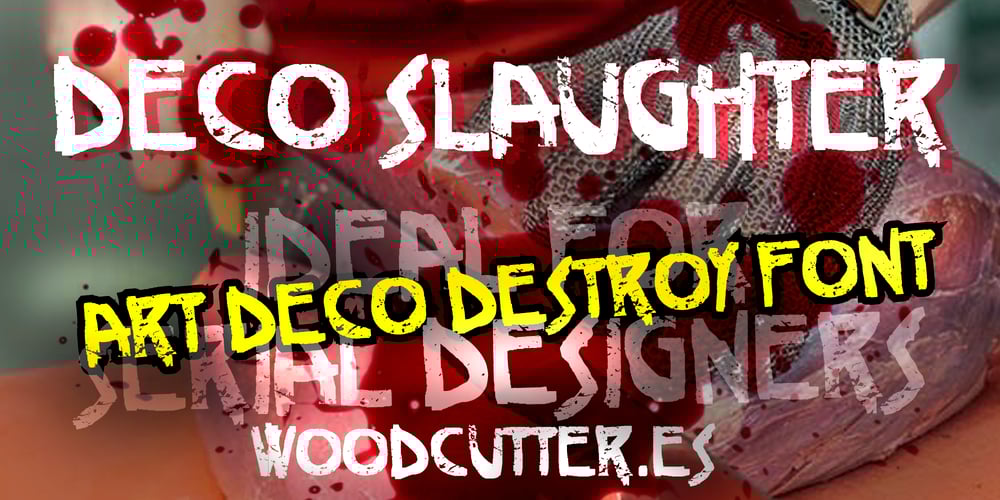
Deco Slaughter Font Family was designed by Jordi Manero and published by Woodcutter. Deco Slaughter contains 1 styles and family package options. Deco Slaughter is a unique typeface that blends the elegant Art Deco style with the visceral and broken aesthetic of horror typography. Each letter is meticulously crafted to evoke a sense of intrigue and mystery. The sophisticated and geometric lines of Art Deco intertwine with shattered and bleeding details, creating a striking contrast. This typeface is perfect for projects that aim to break conventions and stand out with a provocative aesthetic. Deco Slaughter captures the essence of classic style with a dark and disturbing twist, providing your designs with a distinctive and memorable character.